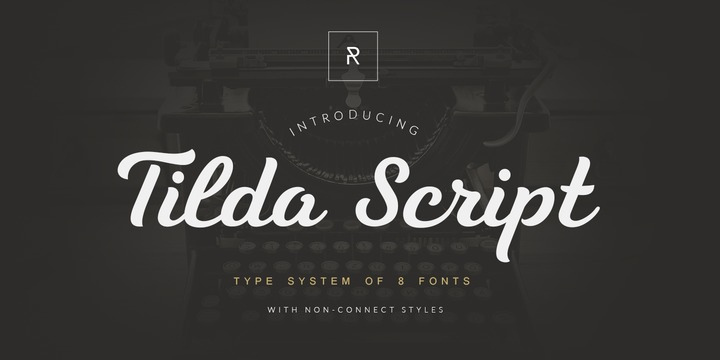
Tilda Script Font
This elegant typeface is perfect for wedding invitations, feminine branding, beauty salons, luxury stationery, romantic cards, boutique signage, calligraphy services, premium packaging, and sophisticated script design applications.
What makes this font exciting is its flowing elegance combined with handwritten sophistication, offering designers a graceful typeface that captures the artistry of fine penmanship while delivering romantic charm and timeless calligraphic appeal.
The Tilda Script font family includes regular, bold, light, ornamental, and flourished variations, providing complete elegant design solutions for creating sophisticated handwritten visual identities.
Whether you're developing luxury feminine brands or crafting romantic design experiences, Tilda Script Font Free Download brings exceptional calligraphic atmosphere and handwritten authenticity to every application. This graceful typeface combines traditional script typography with contemporary elegant design, creating letterforms that inspire romance and celebrate feminine beauty. The font's flowing construction and sophistication-ready details make it perfect for brands seeking immediate elegant recognition.
Tilda Script Font features carefully crafted script styling with authentic calligraphic character that conveys genuine penmanship expertise. Each character has been designed with flowing proportions and elegant elements that enhance the romantic aesthetic. The font's script qualities make it particularly effective for beauty brands and wedding applications.
Professional designers choose Tilda Script Font for projects requiring authentic calligraphic credibility and romantic atmosphere. Its elegant heritage makes it exceptionally well-suited for wedding planners, beauty salons, and luxury lifestyle brands. The font's versatile script variations allow designers to control the elegance intensity, from subtle calligraphic grace to full romantic celebration.
The complete Tilda Script Font package offers extensive calligraphic ornaments and elegant decorative elements that enhance the sophisticated aesthetic. Advanced flowing features allow designers to create complex script effects with multiple romance-inspired options. This comprehensive elegant toolkit ensures designers have everything needed to create authentic calligraphic communications that celebrate the timeless beauty of handwritten elegance and romantic script sophistication.